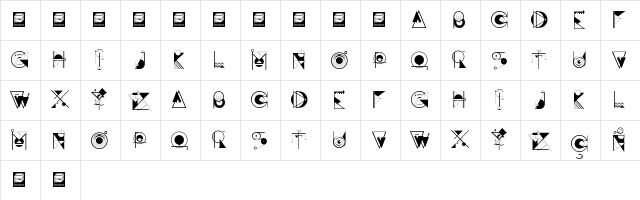
AWAKEMIND Regular
Foundry: Pisto Casero
Designer: Gilberto Moya
Design Context for AWAKEMIND
AWAKEMIND is a composed and adaptable typeface that performs quietly and consistently across a wide range of design contexts.